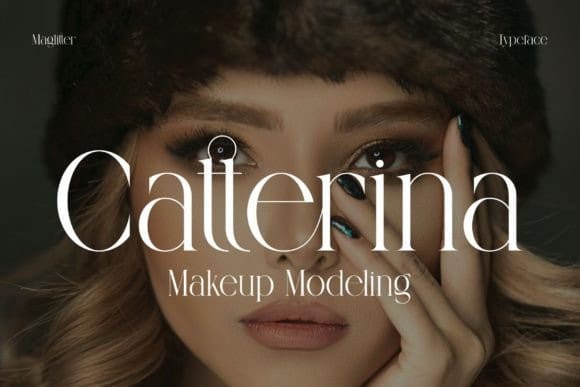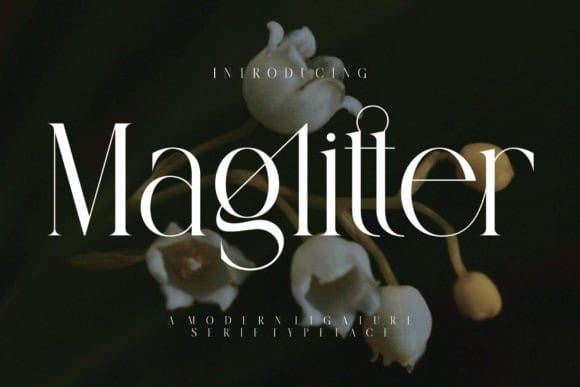
Maglitter Font
Maglitter Font – Modern Ligature Serif Typeface inspired by the famous minimalist logo perfect for the purposes of designing templates, brochures, videos, advertising branding, logos, invitation, layout design, elegant crafting, beauty design and others.